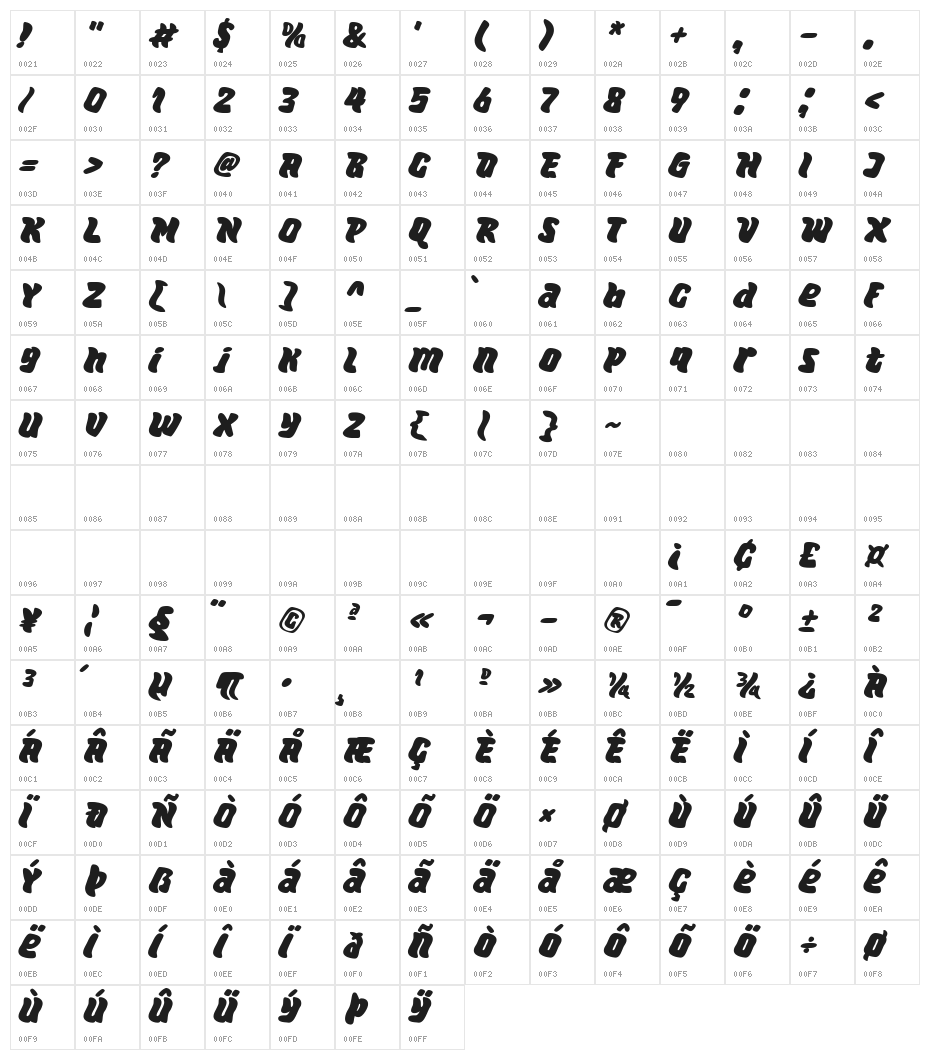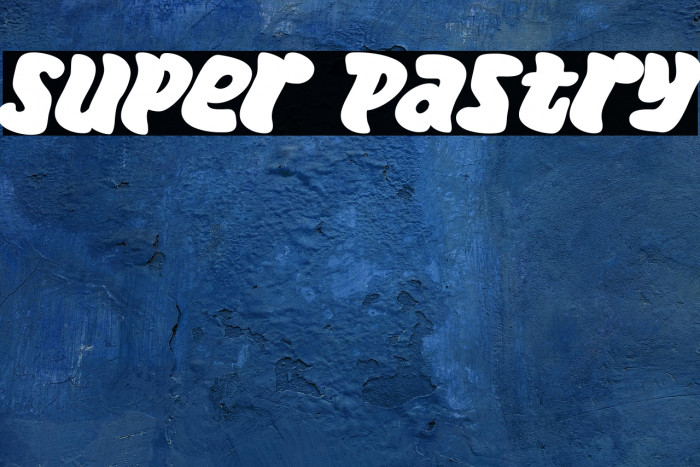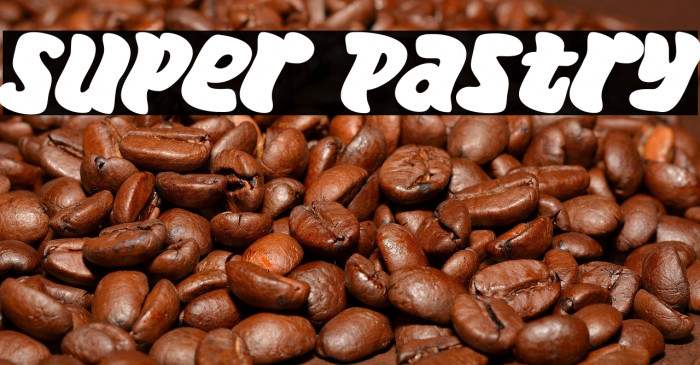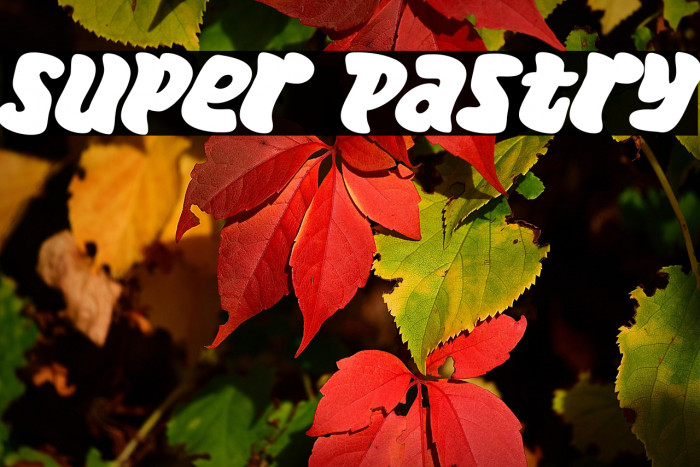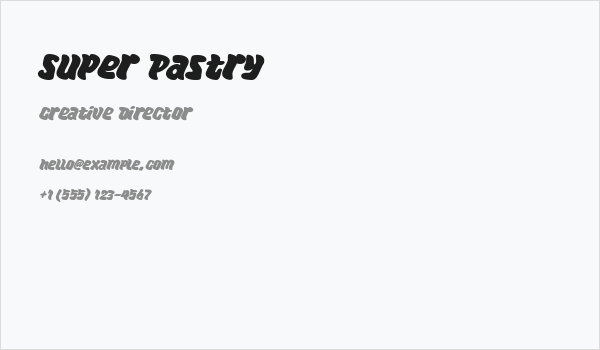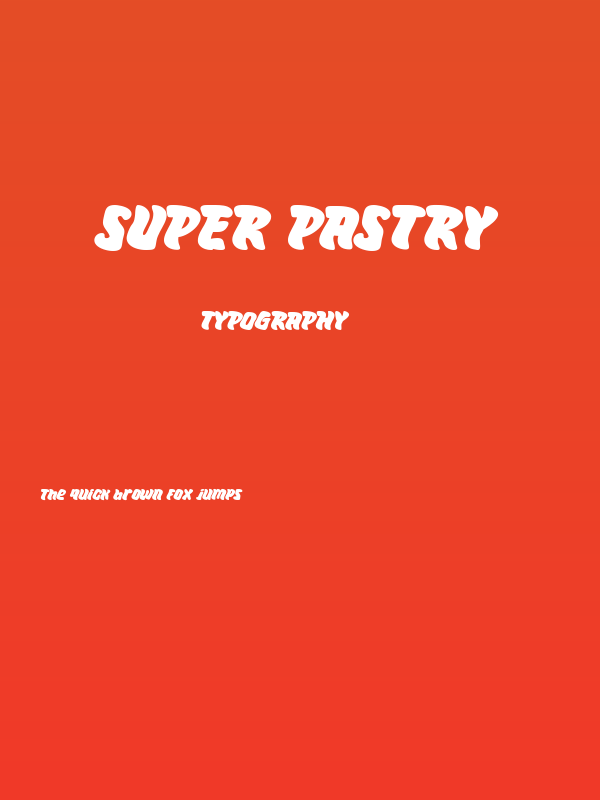
Super Pastry Font
Super Pastry Description
This font features a bold, playful style with thick, rounded strokes that give it a lively and energetic appearance. The characters are closely spaced, creating a sense of cohesion and flow. The uppercase and lowercase letters maintain a consistent weight, contributing to a uniform look across the alphabet. Numbers and special characters are designed with the same playful curves, ensuring a harmonious overall aesthetic. The font's high contrast in stroke thickness adds to its dynamic and eye-catching nature, making it ideal for projects that require a fun and engaging visual impact.
| Overall Style | Playful, Energetic |
| Proposed Projects | Ideal for children's books, playful branding, posters, and event invitations. |